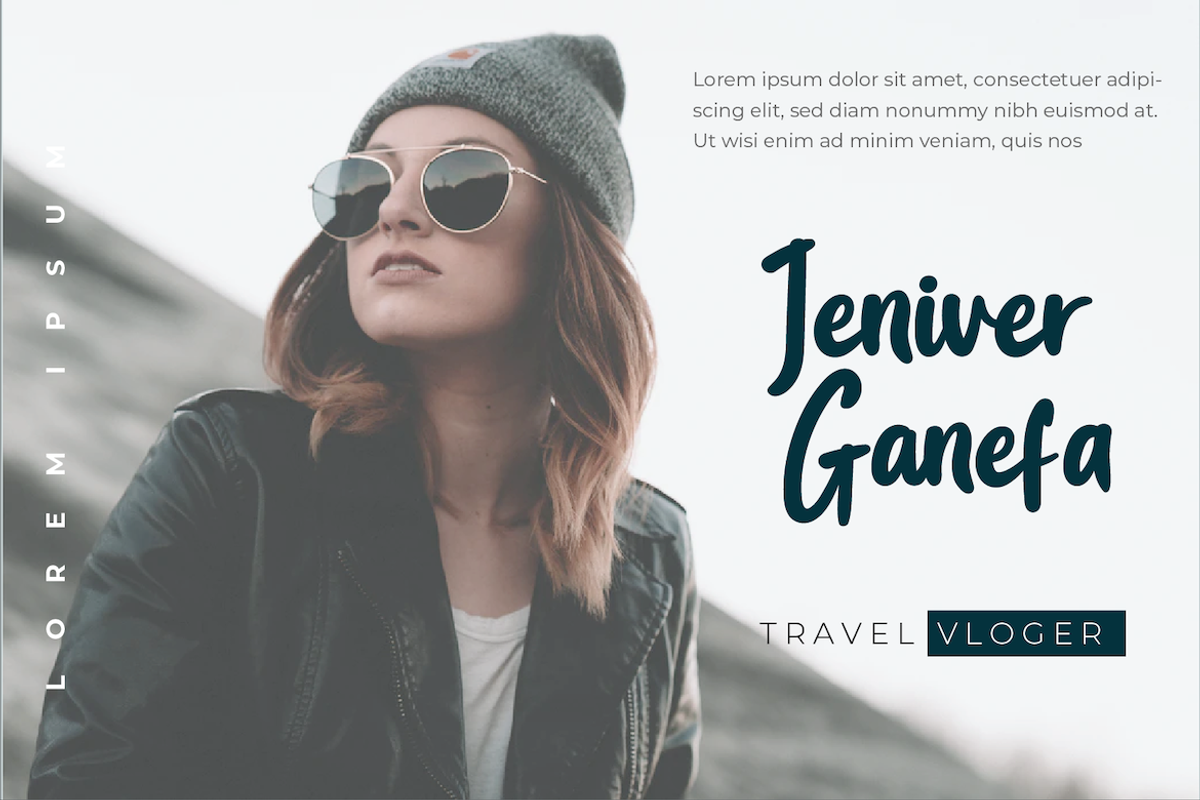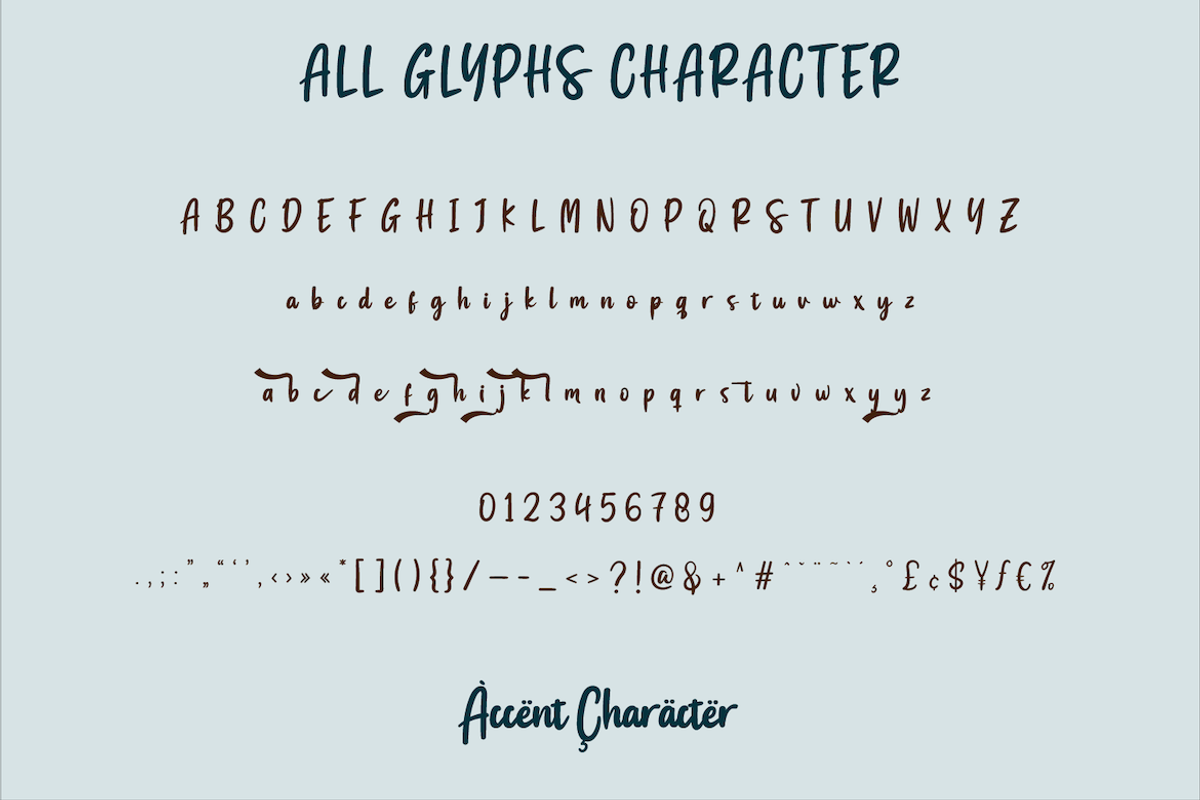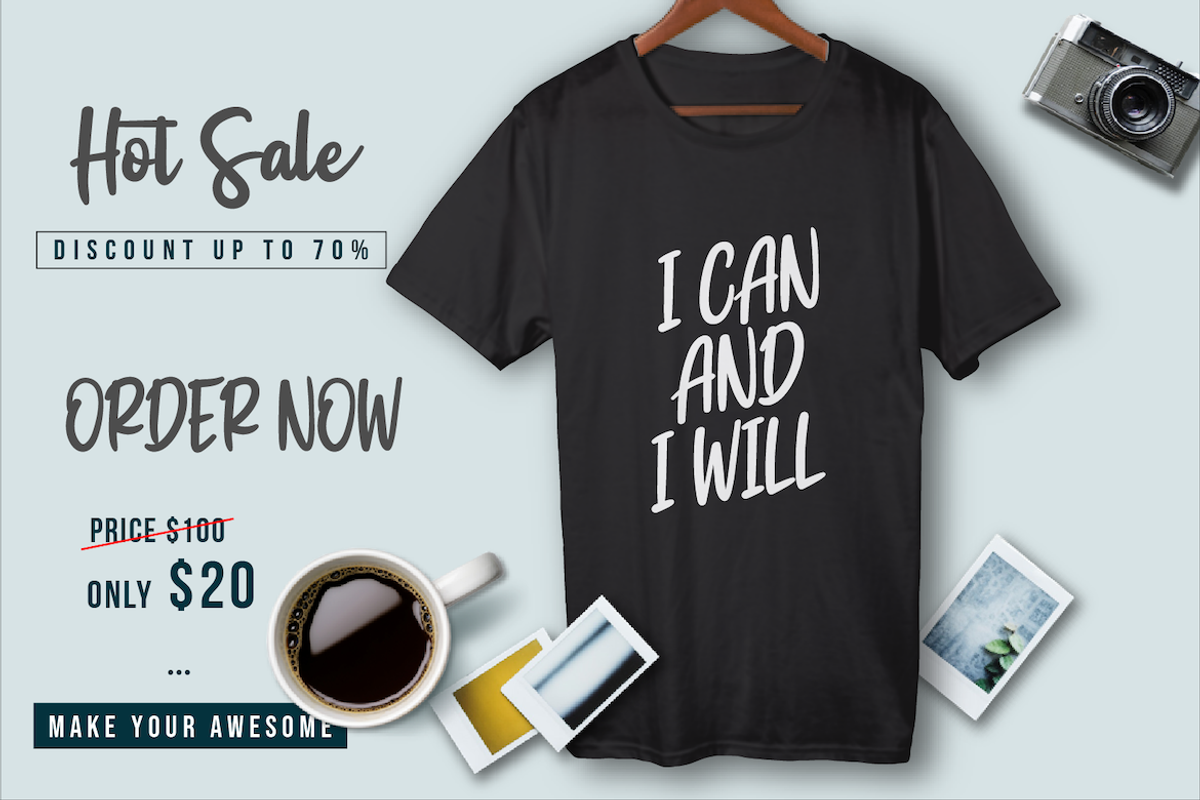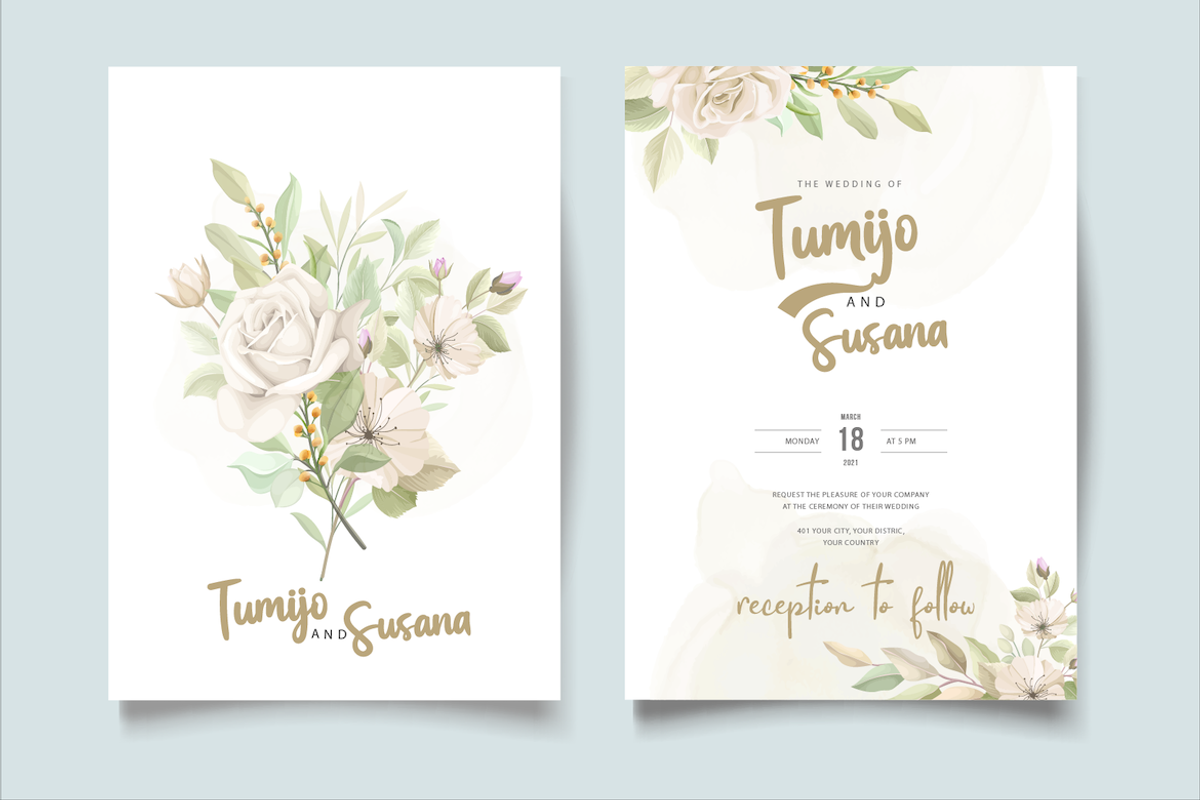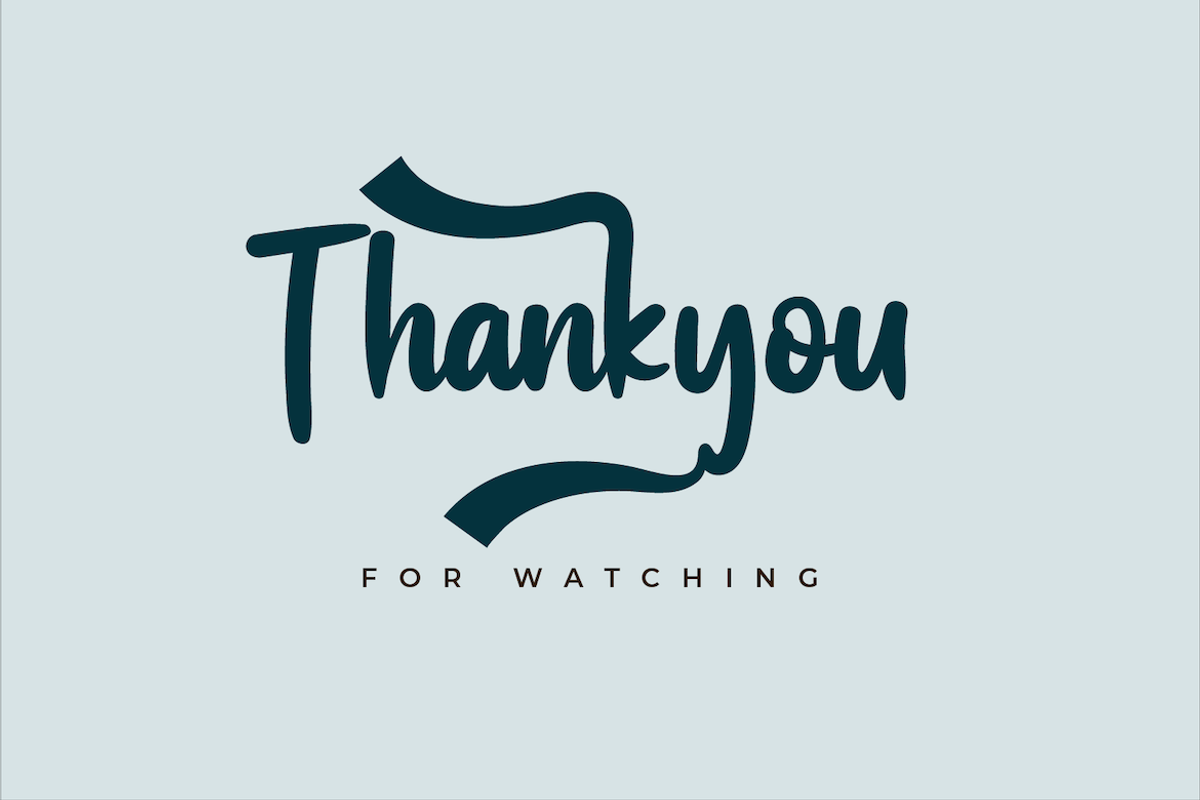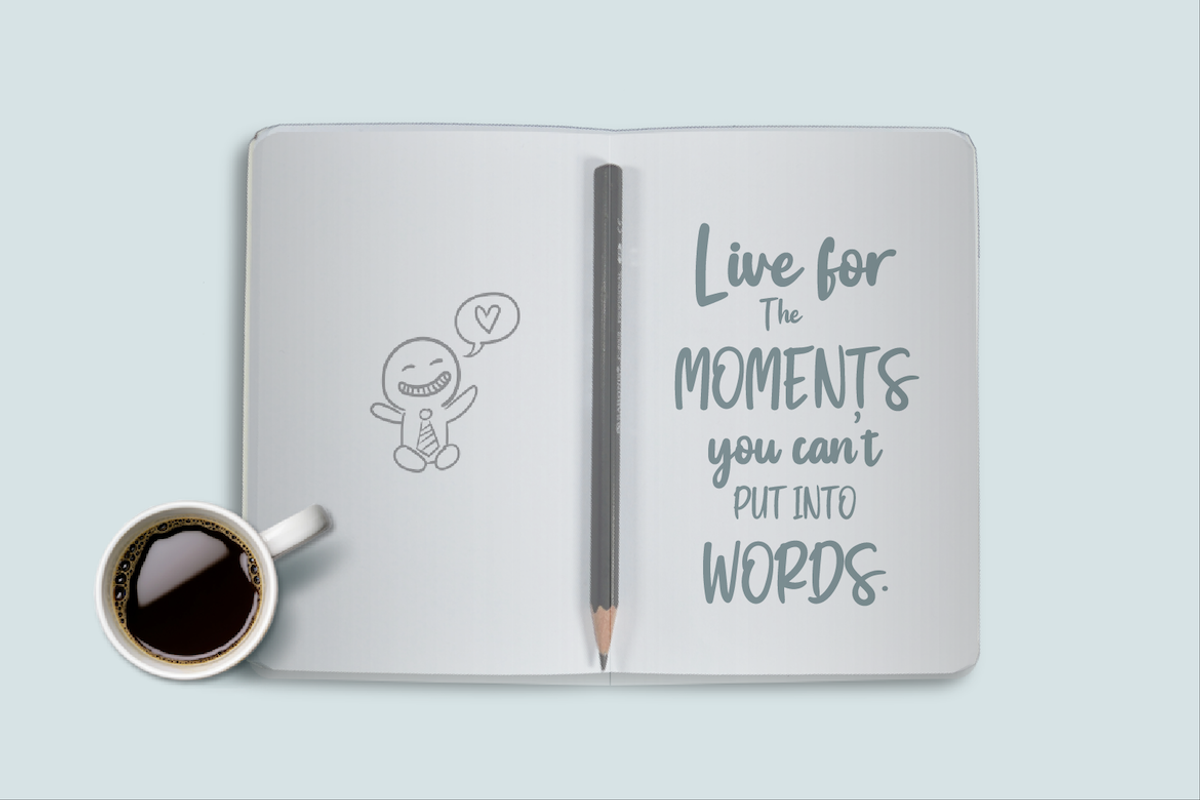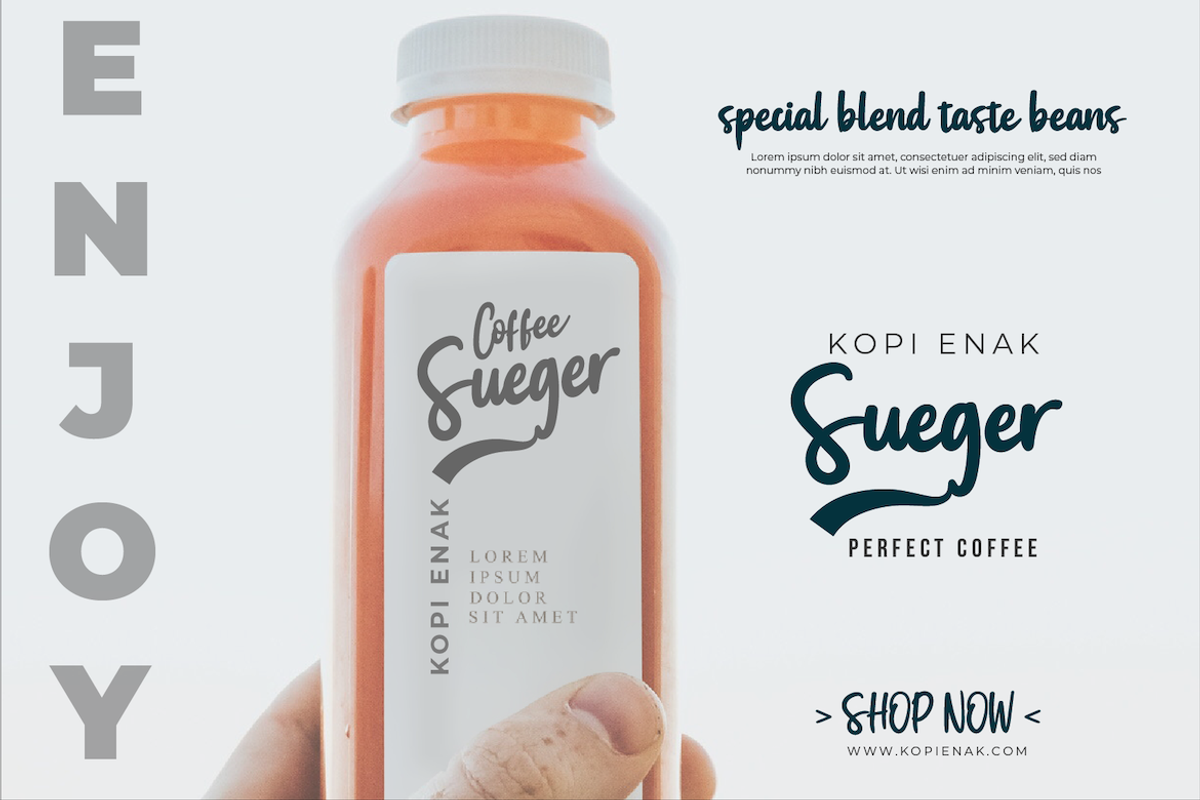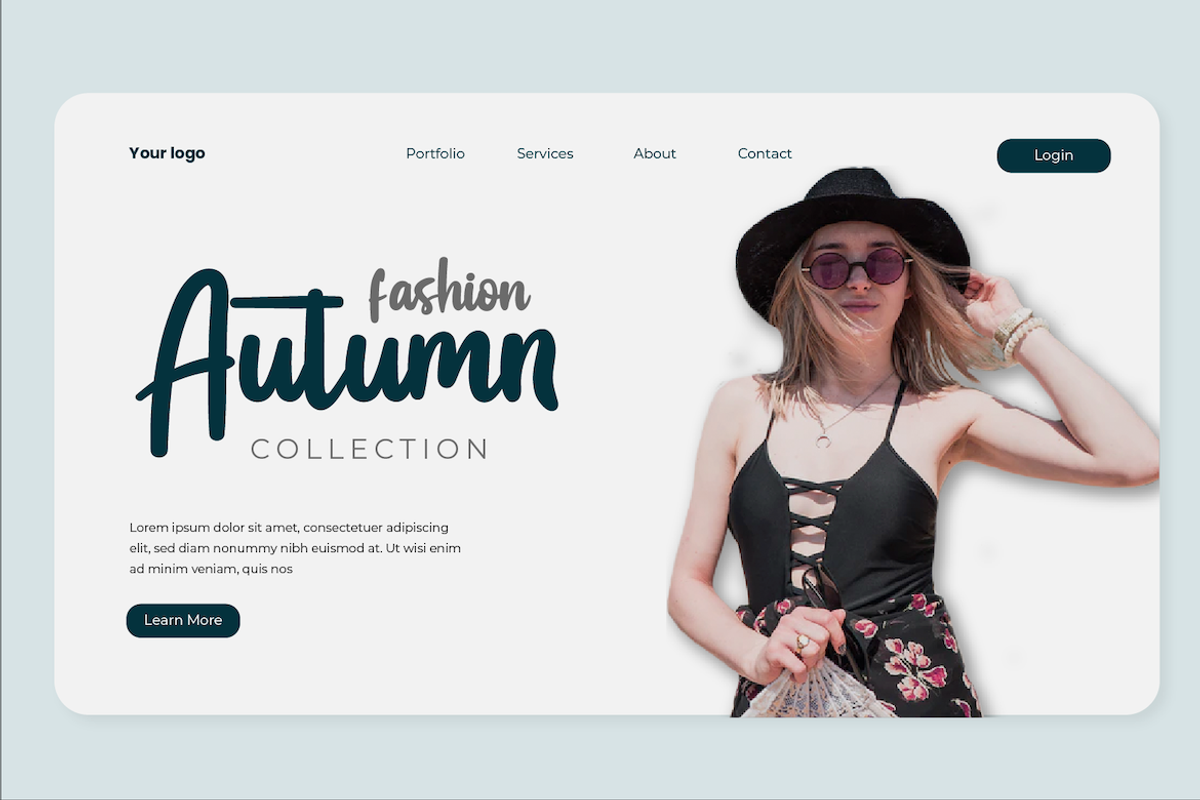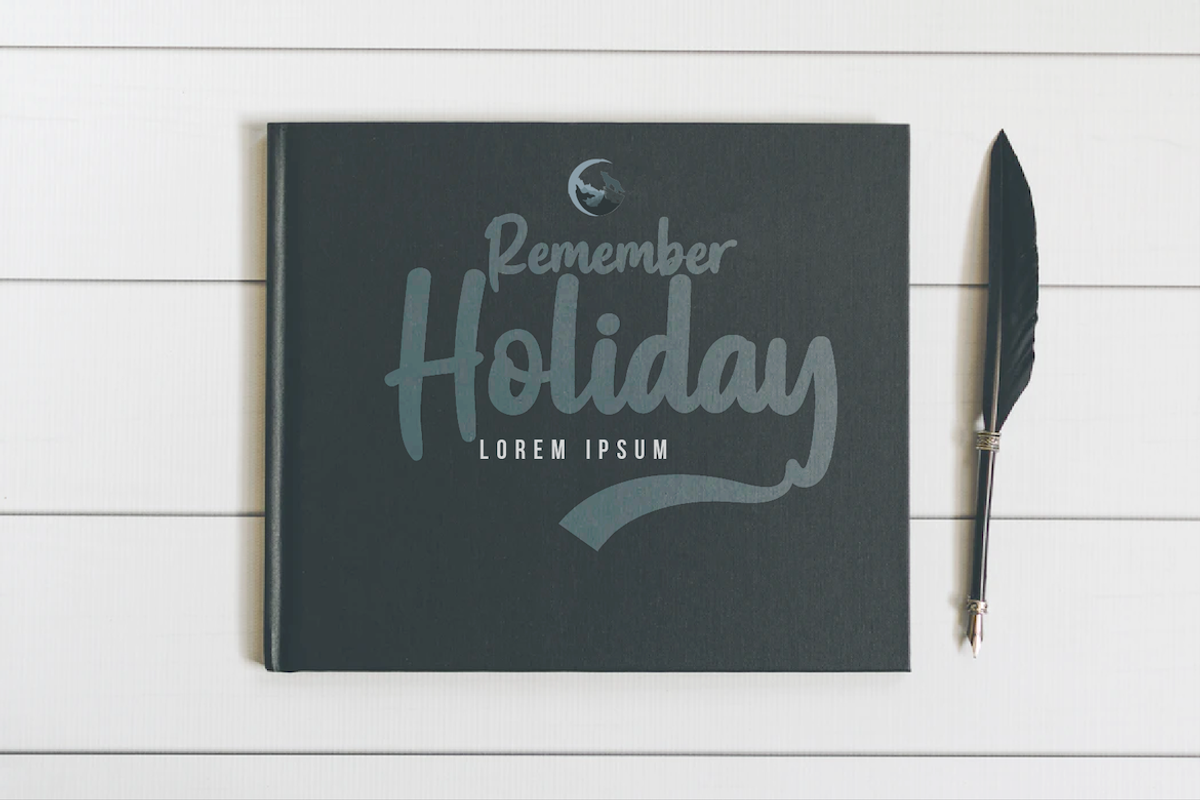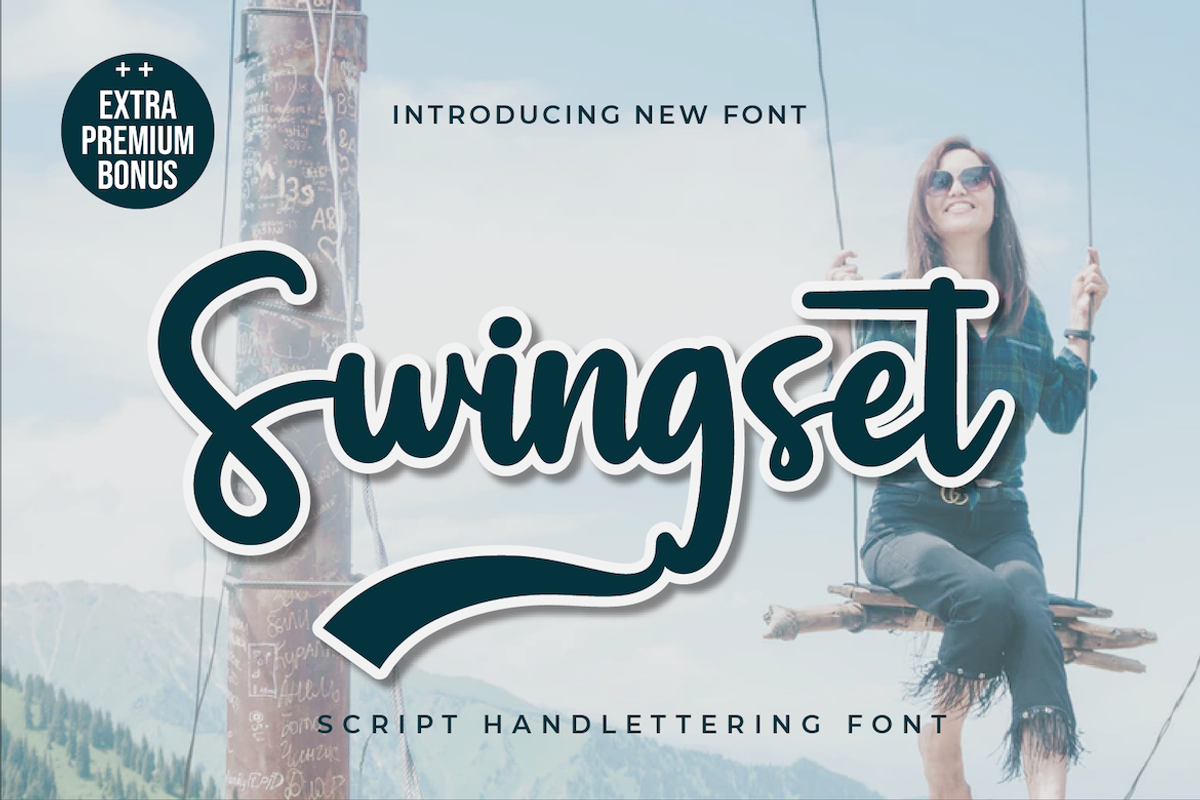
Swingset
Introducing our newest Swingset.
This font is made with original hand-drawn strokes for a relaxed, beautiful, and elegant feel.
This font also offers beautiful abstract typographic harmony for a wide variety of design projects, including natural handwriting in digital form for designs, Quote designs, for social media business designs, advertisements, trademark brands, promotional banners, lettering, posters, signatures, and all designs requiring handwriting or whatever design you want. Start creating awesome designs with this font!
This charming font also offers the beauty of abstract typography harmony for a wide variety of design projects, including digital natural handwriting for designs, quote designs, for social media business designs, advertisements, trademarks, food and beverage promotion banners, text, posters, a signature, and all designs require handwriting or whatever design you want.